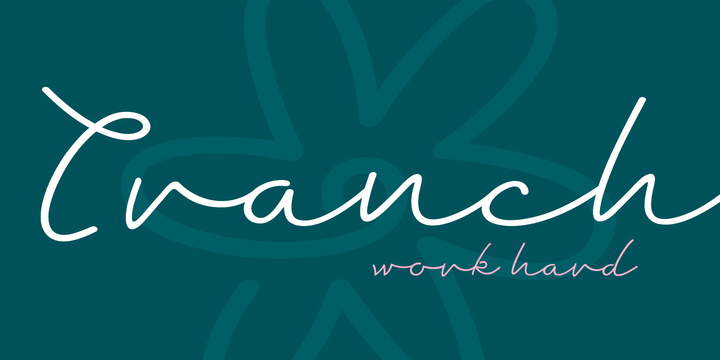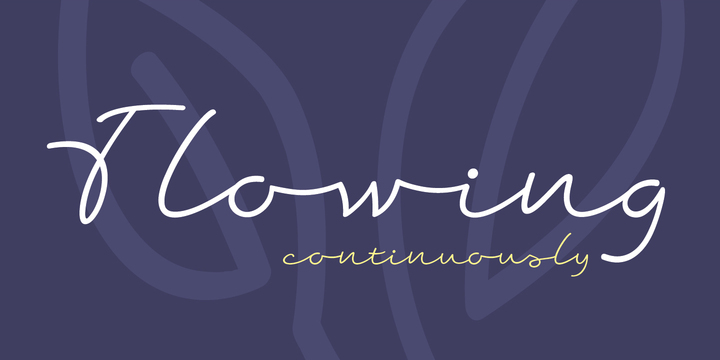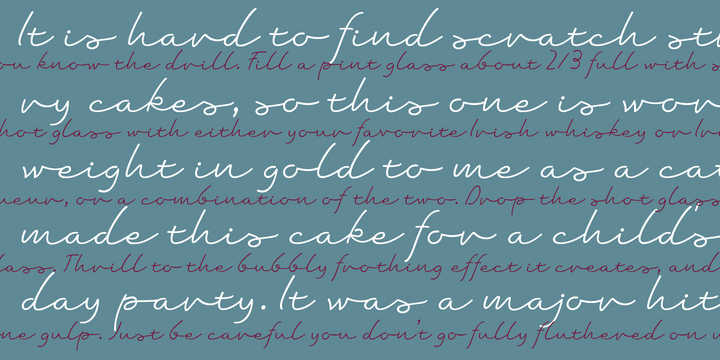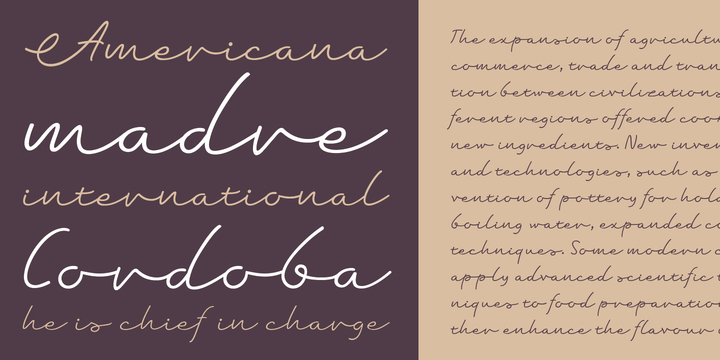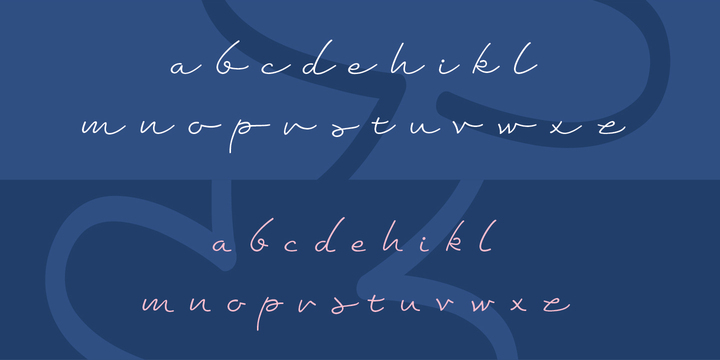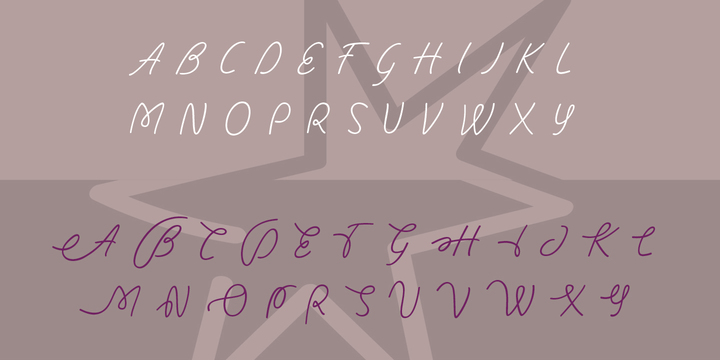
The Nostalgic Charm of Dambera Retro Font
As a designer, I’ve had my fair share of font hunting struggles. I recall working on a project for a client’s wedding invitation, determined to find the perfect font that would capture the essence of their special day. After hours of scouring through font libraries, I stumbled upon a quirky script font that caught my eye – Dambera Retro Font. Little did I know that this font would become a staple in my design toolkit.
A Personal Connection to Dambera
What’s fascinating about Dambera is the story behind its name. As a child, I created a comic book featuring a planet called Dambera. Years later, when I designed this font, I drew inspiration from those early creative endeavors. Dambera Retro Font is a simple yet elegant script font that I initially designed for wedding invitations and restaurant menus. However, its versatility soon became apparent, and I began using it for a wide range of design projects, from posters and book covers to outdoor signs, labels, and packages.
What Makes Dambera Special
Dambera Retro Font boasts an impressive set of features that make it a valuable addition to any designer’s collection. Some of its notable features include:
- ✨ Stylistic ligatures and swash alternates for added flair
- ✅ A small set of floral dingbats to enhance your designs
- 🔍 A set of characters with specific endings, also known as FINA (final form) in OpenType terminology
- ✅ The elegant, cursive feel that adds a touch of sophistication to any design
- ✨ The variety of stylistic alternates and ligatures that allow for creative experimentation
- ✅ The inclusion of floral dingbats, which can add a whimsical touch to designs
- 🤔 The font may not be suitable for body text due to its script nature and potential readability issues
- ⚠️ Some users may find the FINA characters tricky to use, especially if they’re new to OpenType features
As I reflect on the design process behind Dambera Retro Font, I’m reminded of my childhood love for creative storytelling. Growing up, I spent hours crafting comics and stories, and those early experiences influenced my design aesthetic. I wanted Dambera to capture the essence of those carefree days, while also providing a versatile tool for designers.
| What inspired the design of Dambera Retro Font? | The font was inspired by my childhood love for creative storytelling and my early experiences designing comics. |
| Does Dambera Retro Font support OpenType features? | Yes, Dambera Retro Font supports OpenType features, including stylistic ligatures, swash alternates, and FINA characters. |
| Can I use Dambera Retro Font for body text? | While Dambera Retro Font is elegant and sophisticated, it may not be suitable for body text due to its script nature and potential readability issues. |